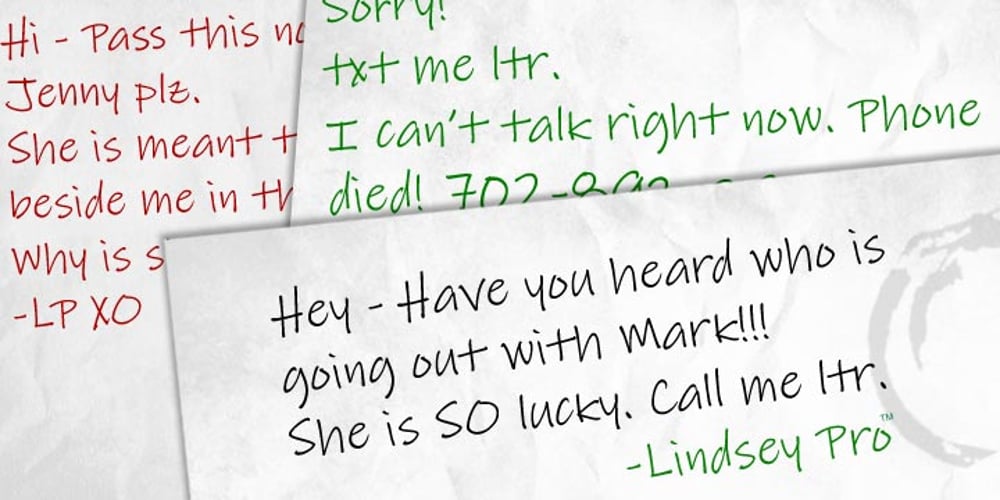
Lindsey
Lindsey font
Lindsey Font Family was designed by Steve Matteson, Terrance Weinzierl and published by Ascender. Lindsey contains 2 styles and family package options. Lindsey Pro is a new handwriting style font with advanced OpenType features including alternative characters and ligatures. Lindsey Pro was created by Steve Matteson based on a teenager’s handwriting. It is a casual typeface design with irregular alignments and occasional connections. Lindsey is a fun font to use in a wide range of documents, from Valentine’s Day cards to invitations, memos, greeting cards, signs and correspondence. Lindsey Pro was developed to take advantage of the rich typographic OpenType features of applications Adobe Creative Suite, QuarkXPress 7, and Microsoft Expression.